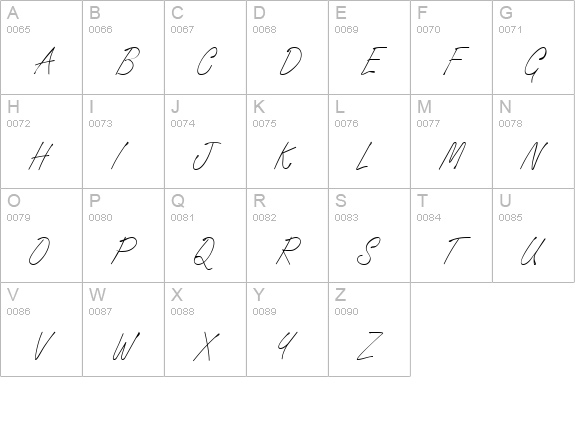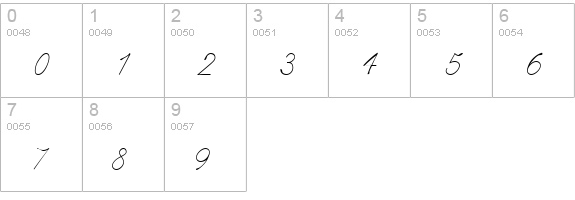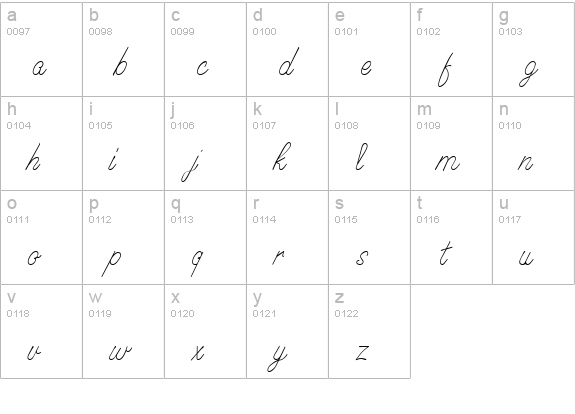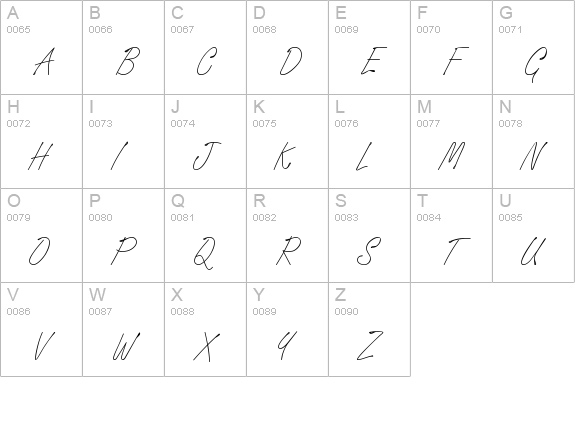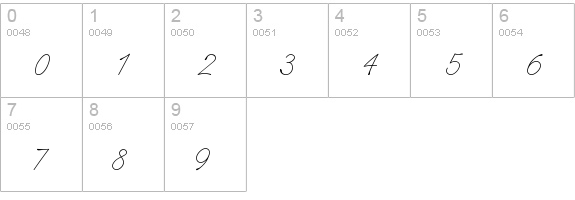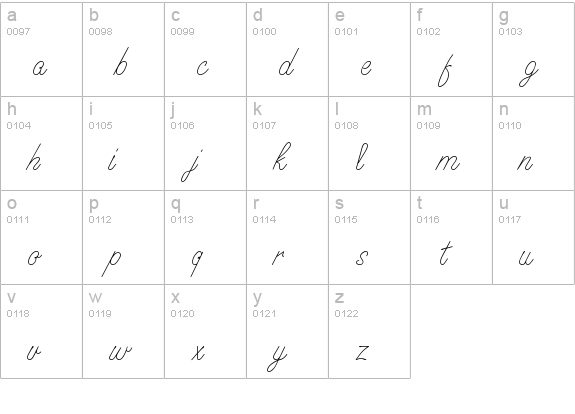
Signature Regular is the standard, neutral variant in the Signature typeface family \xE2\x80\x94 well suited to general body text, paragraphs, and standard typographic work.
Signature Regular is a stunningly elegant and sophisticated font that adds a touch of class and refinement to any project. This font is perfect for creating personalized logos, branding materials, wedding invitations, and more. With its smooth and flowing strokes, Signature Regular exudes a sense of grace and style. What makes this font even more appealing is that it is available for free download at FontsMarket.com. You can easily access this font and start incorporating its beauty into your designs without any cost. Whether you are a professional designer or someone looking to add a special touch to a personal project, Signature Regular is the ideal choice. This font is designed with attention to detail, ensuring that each letter is perfectly crafted to create a seamless and harmonious look. The clean lines and balanced proportions make it easy to read and visually appealing. Signature Regular also offers a wide range of alternate characters, allowing you to customize and create unique designs that truly reflect your individuality. Additionally, Signature Regular is compatible with various design software and can be used across multiple platforms. Whether you are working on a print project or creating digital content, this font will seamlessly integrate into your workflow. Its versatility and flexibility make it a valuable asset for any designer or creative professional. In conclusion, Signature Regular is a free font that combines elegance, sophistication, and versatility. Its timeless beauty will elevate your designs and make them stand out from the crowd. Download this font today at FontsMarket.com and unlock endless possibilities for your next creative endeavor.